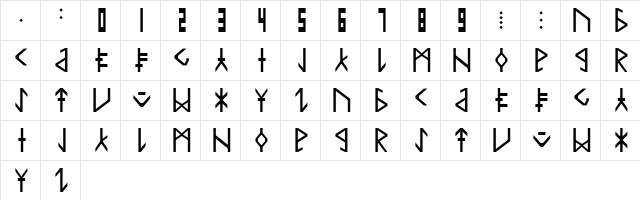
Common Tongue Regular
Design Context for Common Tongue Typeface
Common Tongue is a composed and adaptable typeface that performs quietly and consistently across a wide range of design contexts.
Pro Tip: Pair Common Tongue with a font of contrasting weight or personality to build a more expressive typographic hierarchy.